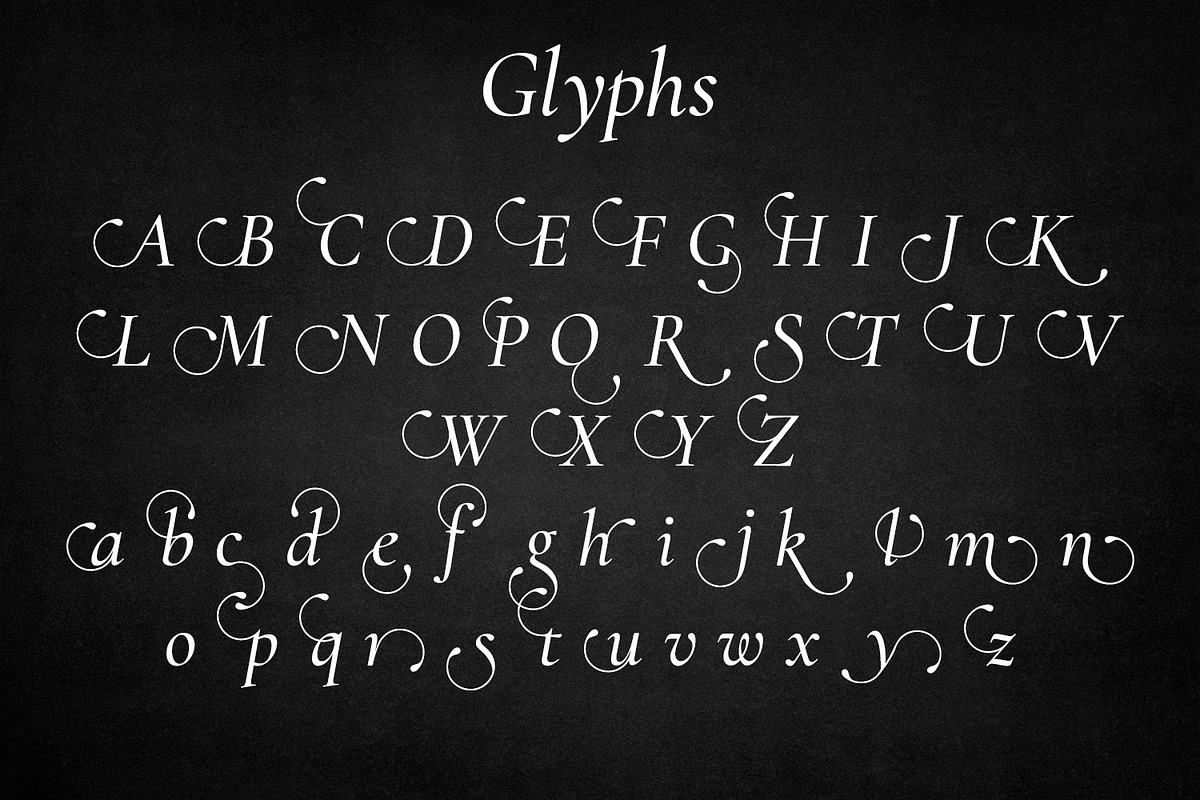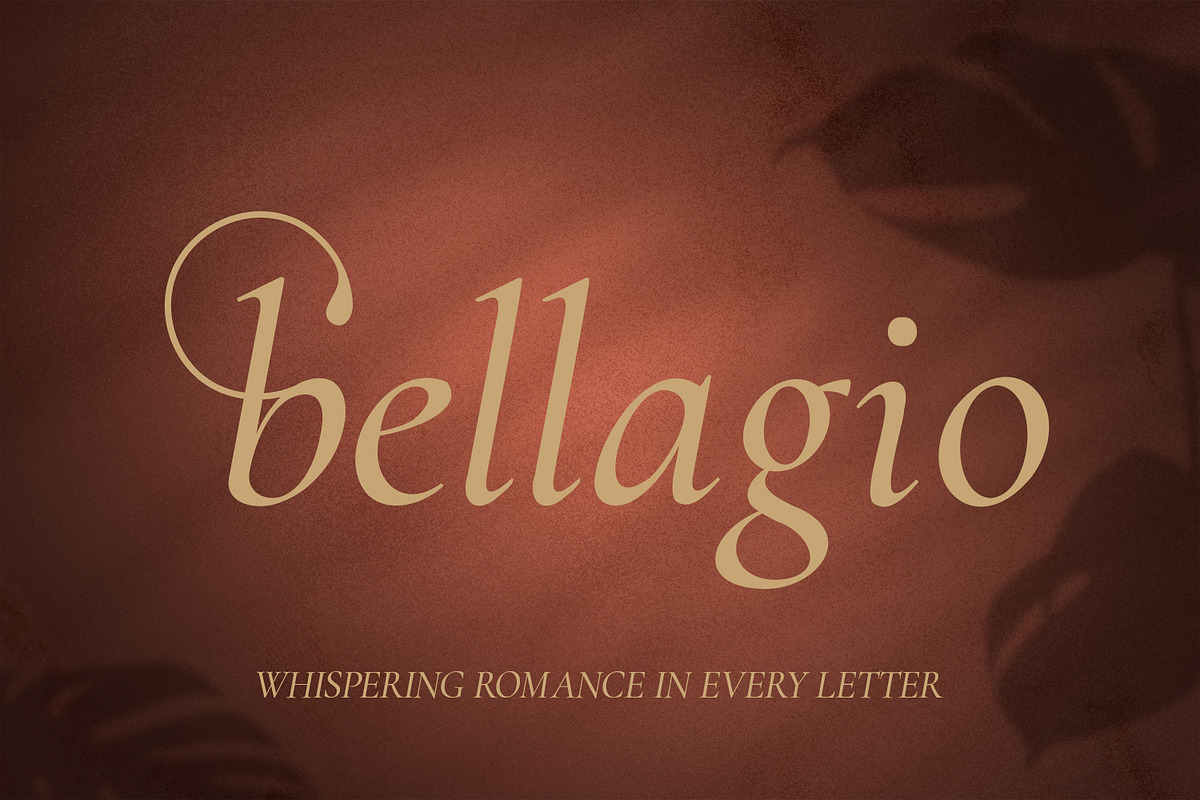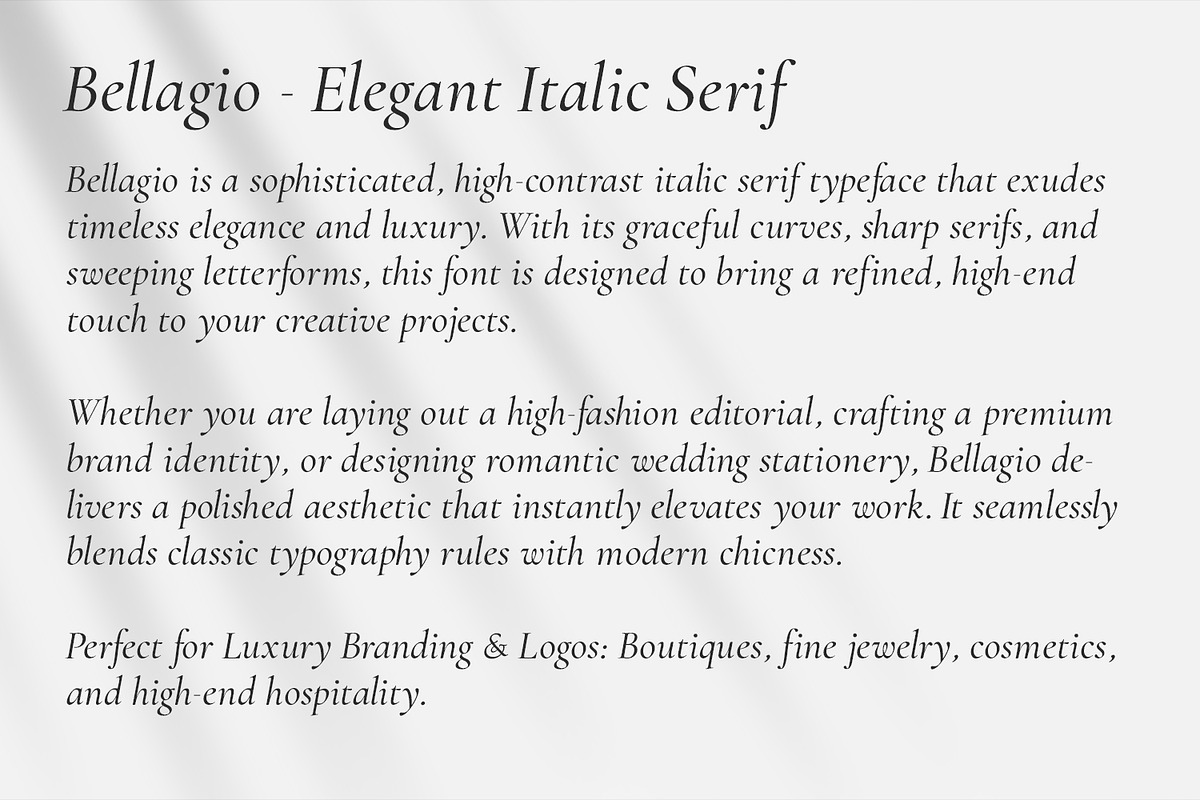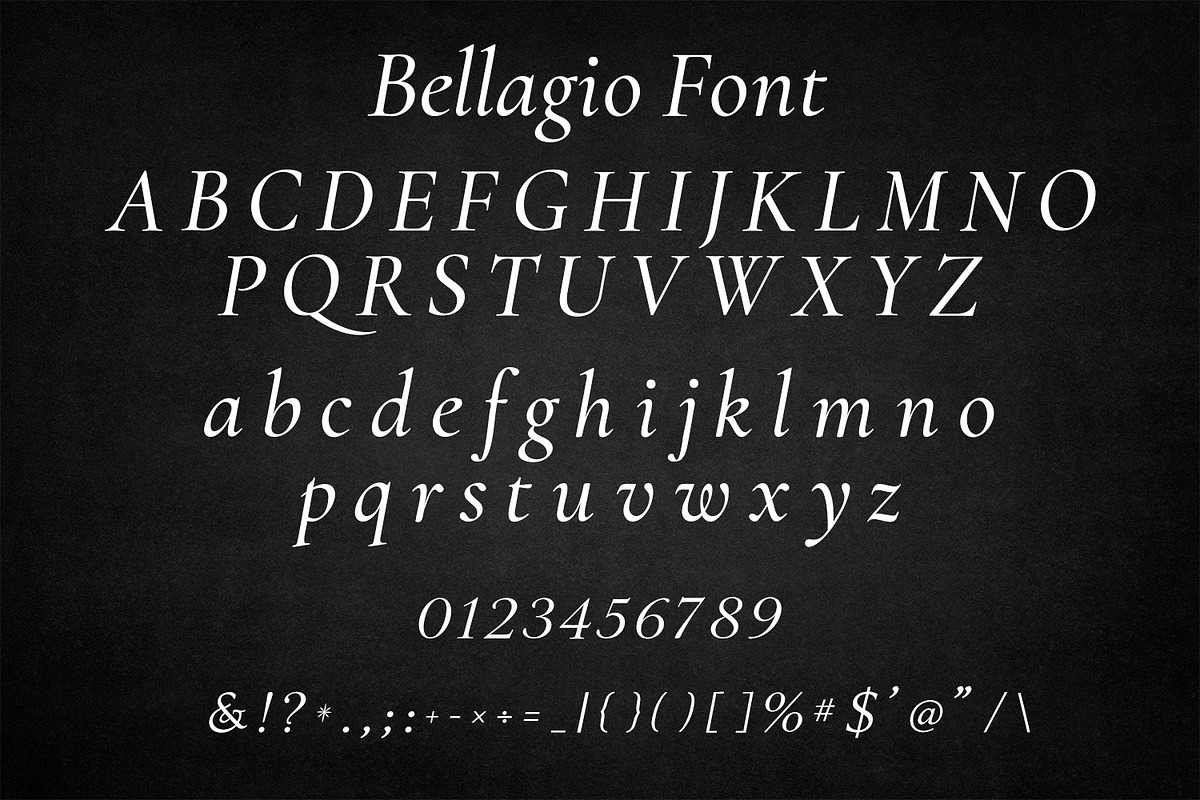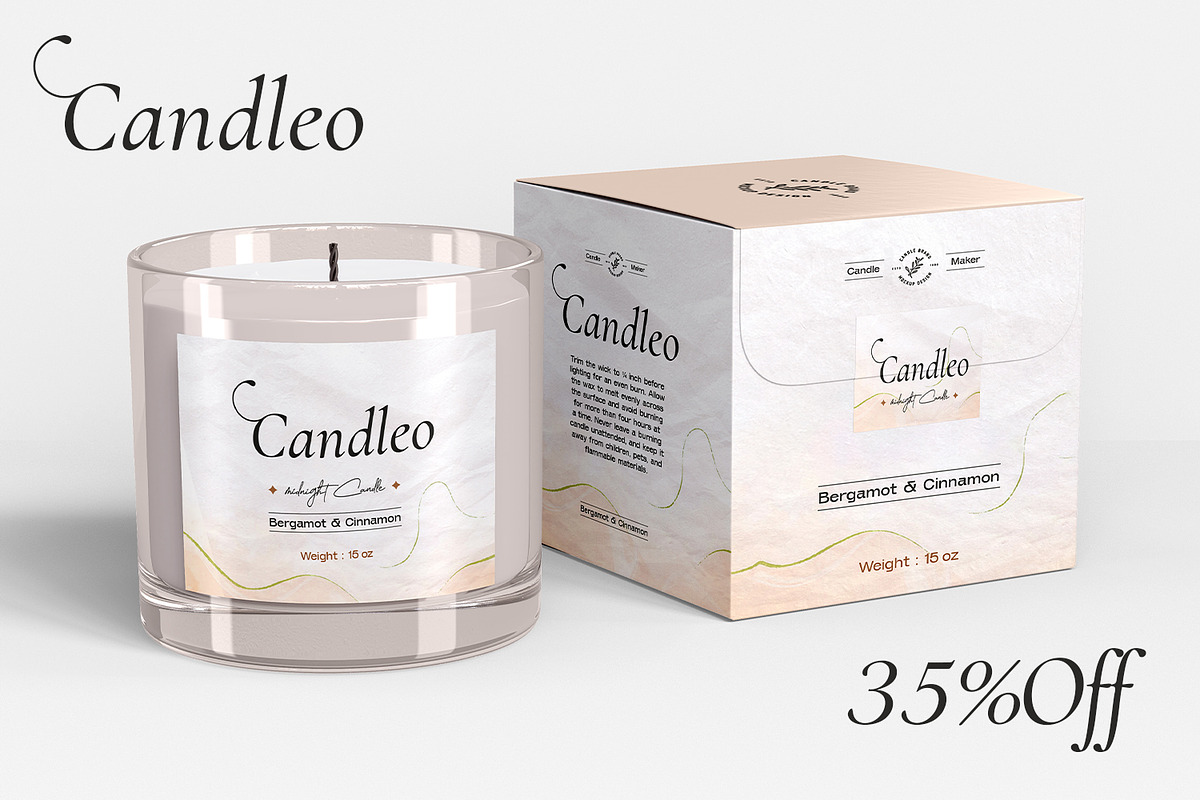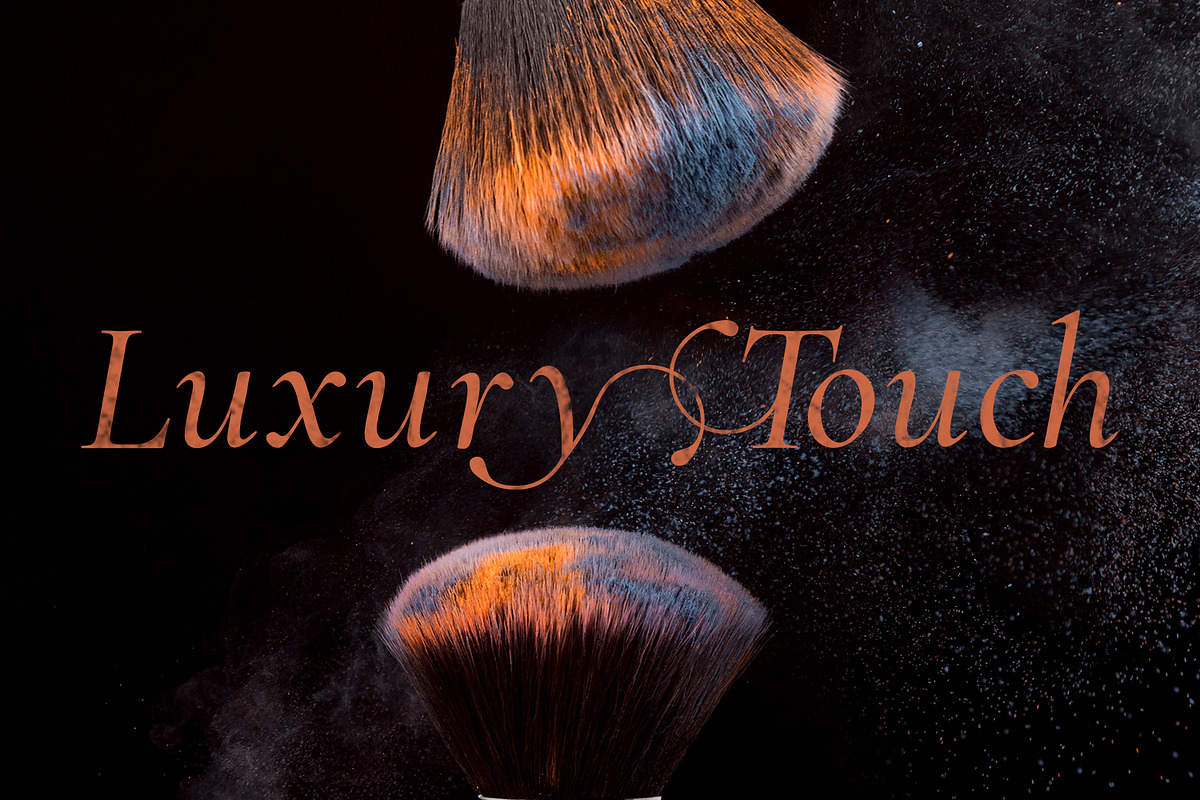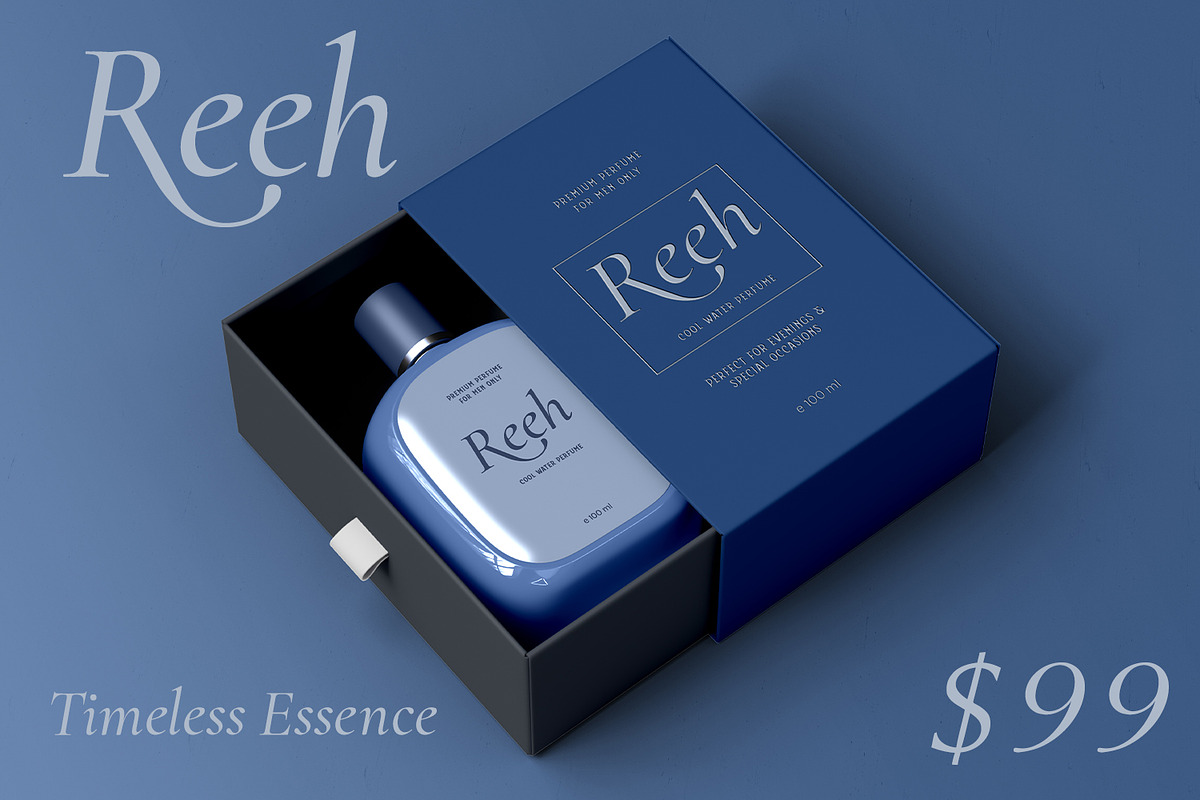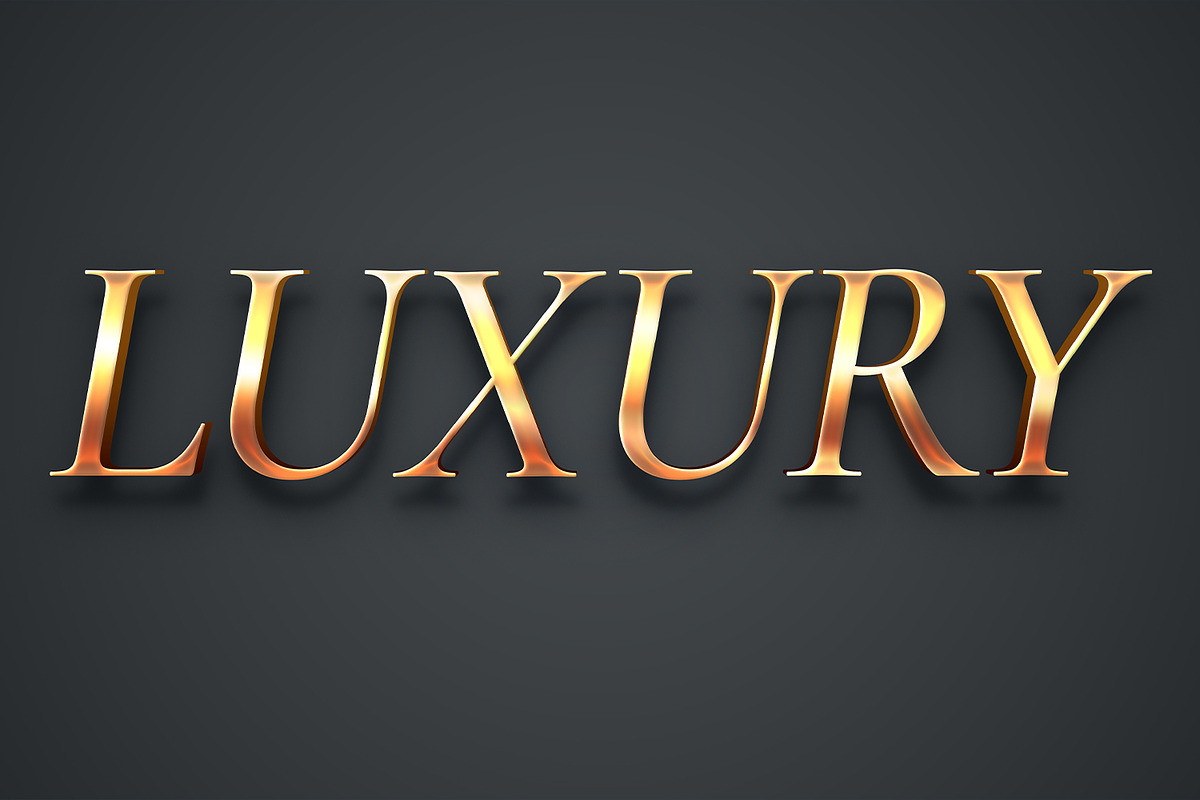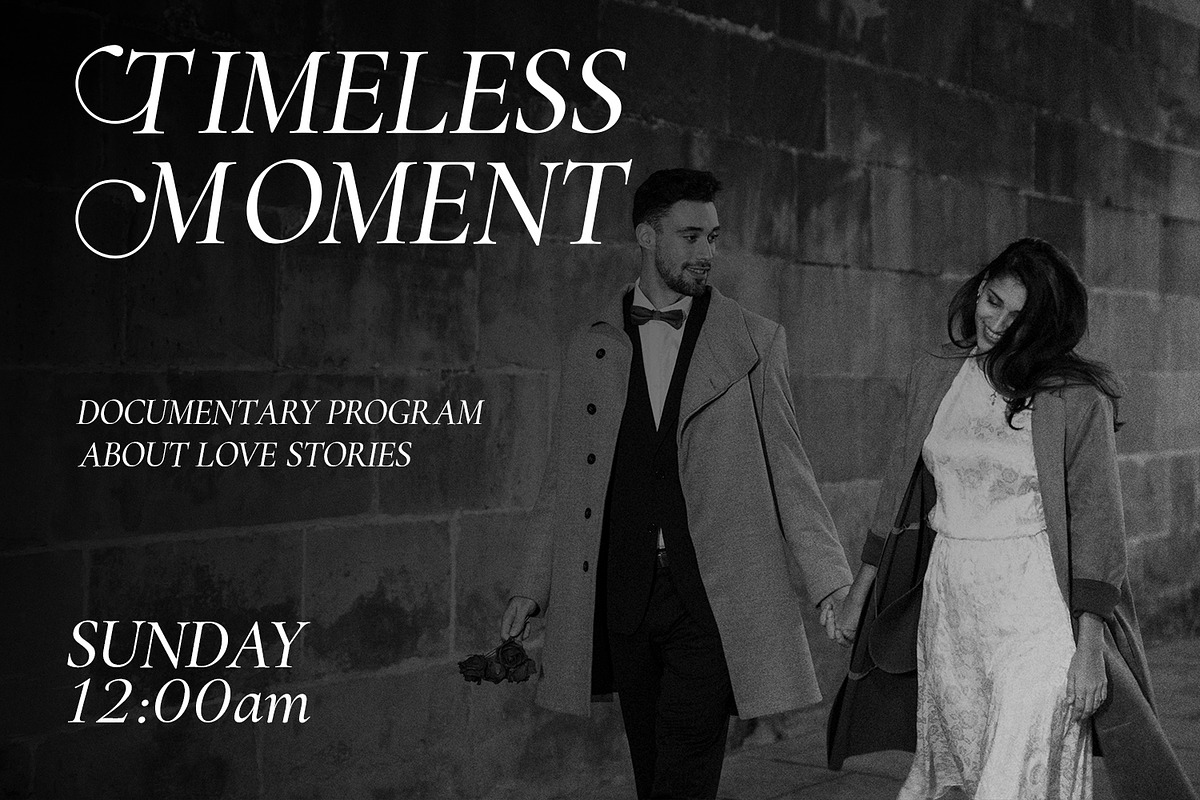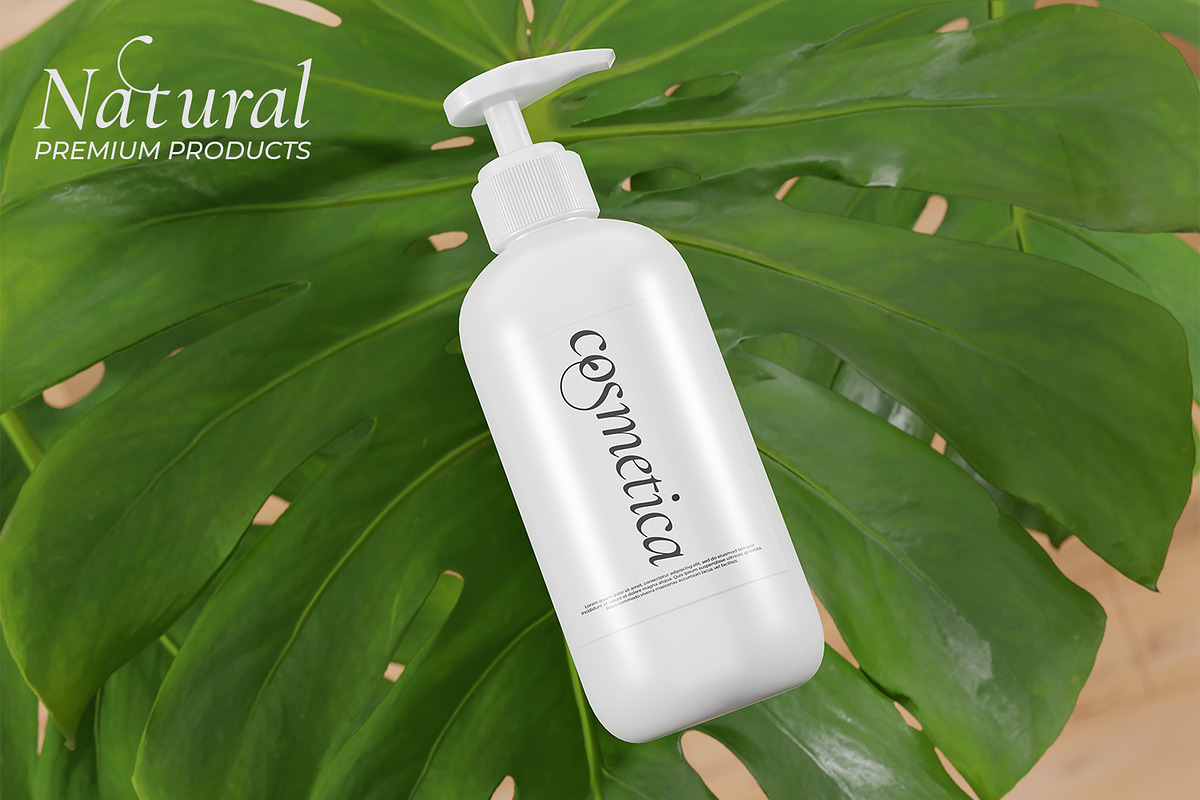
Bellagio - Elegant Italian Serif
Introducing Bellagio, an elegant italic serif font designed to bring a touch of luxury and sophistication to your projects. Featuring beautiful sweeping swashes, high-contrast letterforms, and a complete set of decorative glyphs, Bellagio is perfect for high-end branding, elegant wedding invitations, premium cosmetic packaging, and editorial design. Elevate your creative typography with this timeless and romantic typeface.